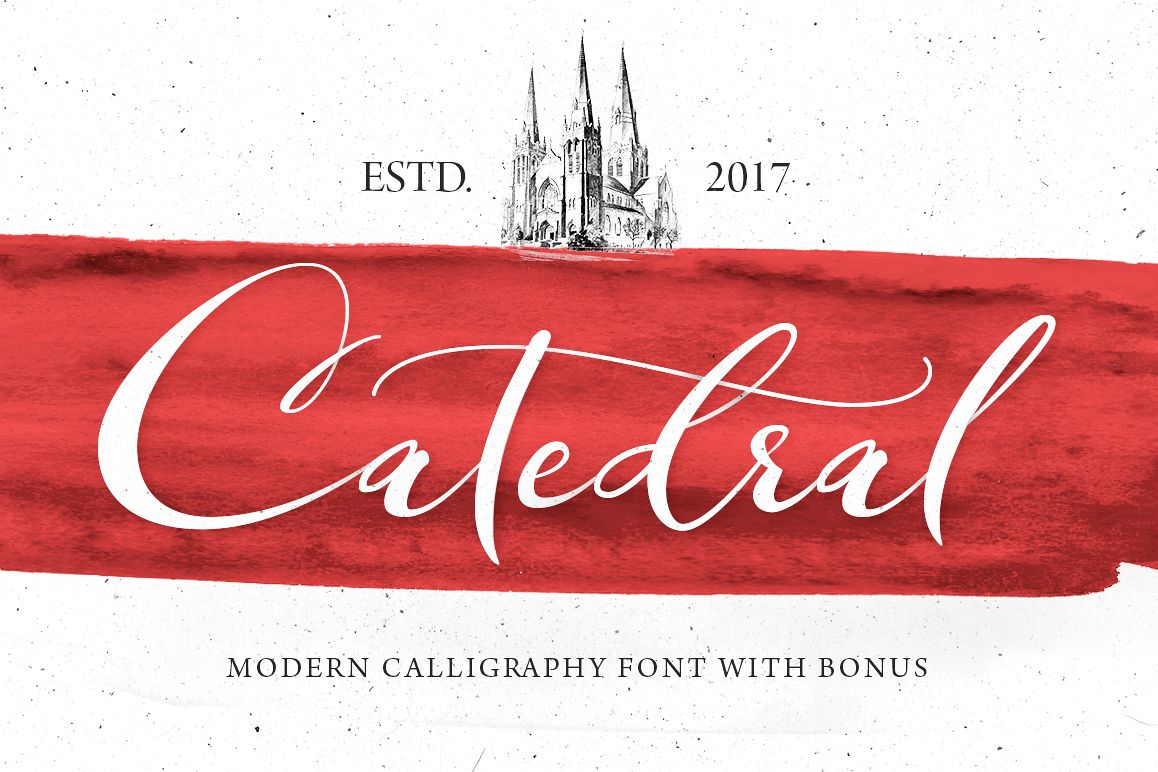
Catedral Script
Catedral Script is hand lettered modern calligraphy font with multilingual support. Is ideal for restaurant menus, greeting cards, invitations, weddings, headers and many more.This brush font comes with a complete set of lowercase and uppercase characters, ligatures and multilingual support. Each character has 1-7 alternates.